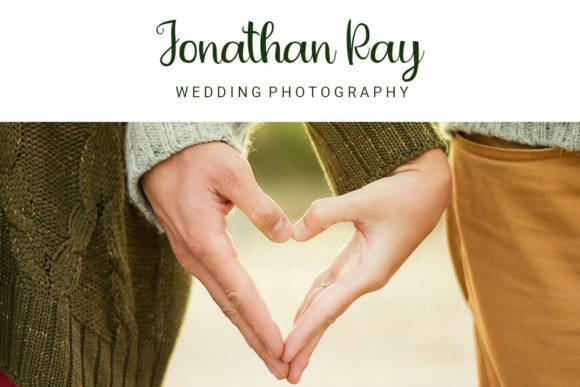
Deflexure Font
Deflexure Script Font is a beautiful and light handwritten font with a unique feel and a stunning impact. It will add a luxury spark to any design project that you wish to create!